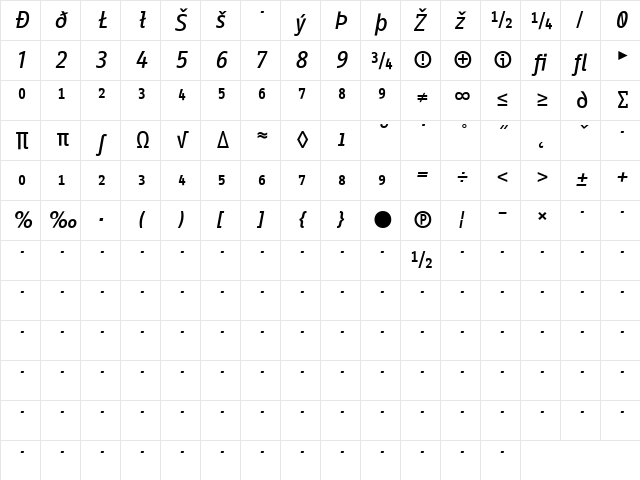
InfoOffic Medium Italic
Design Context for InfoOffic Typeface
InfoOffic is a composed and adaptable typeface that performs quietly and consistently across a wide range of design contexts. The dynamic lean of this cut emphasises speed and emphasis in any layout.
Pro Tip: Try InfoOffic for annotation and caption copy alongside an upright companion — the contrast in angle creates a dynamic but ordered typographic system.